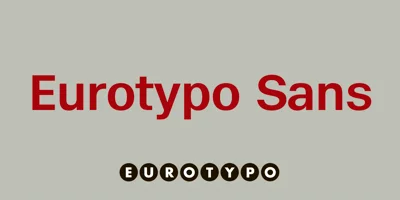
Eurotypo Sans Font
This sophisticated sans-serif font is perfect for European corporate branding, international business communications, modern architectural signage, contemporary editorial design, multinational company logos, professional conference materials, global consulting firms, and cosmopolitan design projects that embody European elegance and international sophistication.
Eurotypo Sans Font is exciting because it embodies continental refinement with its precisely balanced letterforms that reflect European design heritage while maintaining contemporary global appeal. The font delivers international authority while ensuring universal readability across diverse cultural contexts.
The Eurotypo Sans Font family includes thin, light, regular, medium, bold, and black weights with matching italics, plus extended European character sets, providing designers with comprehensive tools for creating multinational typography that transcends borders.
Ready to embrace European sophistication? Eurotypo Sans Font offers designers refined letterforms that communicate with continental elegance and international professionalism. This distinguished typeface combines European design principles with global functionality, making it ideal for multinational corporations, European institutions, and internationally-focused brands. Whether you're designing corporate annual reports, international conference materials, or European market campaigns, this font delivers authoritative appeal. The continentally crafted characters feature European precision while maintaining excellent readability across international applications. Perfect for businesses in international trade, European markets, global consulting, and multinational services that value sophisticated communication and cultural refinement. The font's European construction creates memorable brand recognition that resonates with international audiences worldwide. Each letter showcases deliberate sophistication that mirrors the timeless appeal of European design heritage. Download today and internationalize your creative projects with this premium sans-serif font that transforms ordinary text into extraordinary expressions of continental elegance and the sophisticated appeal of Eurotypo Sans Font refinement.